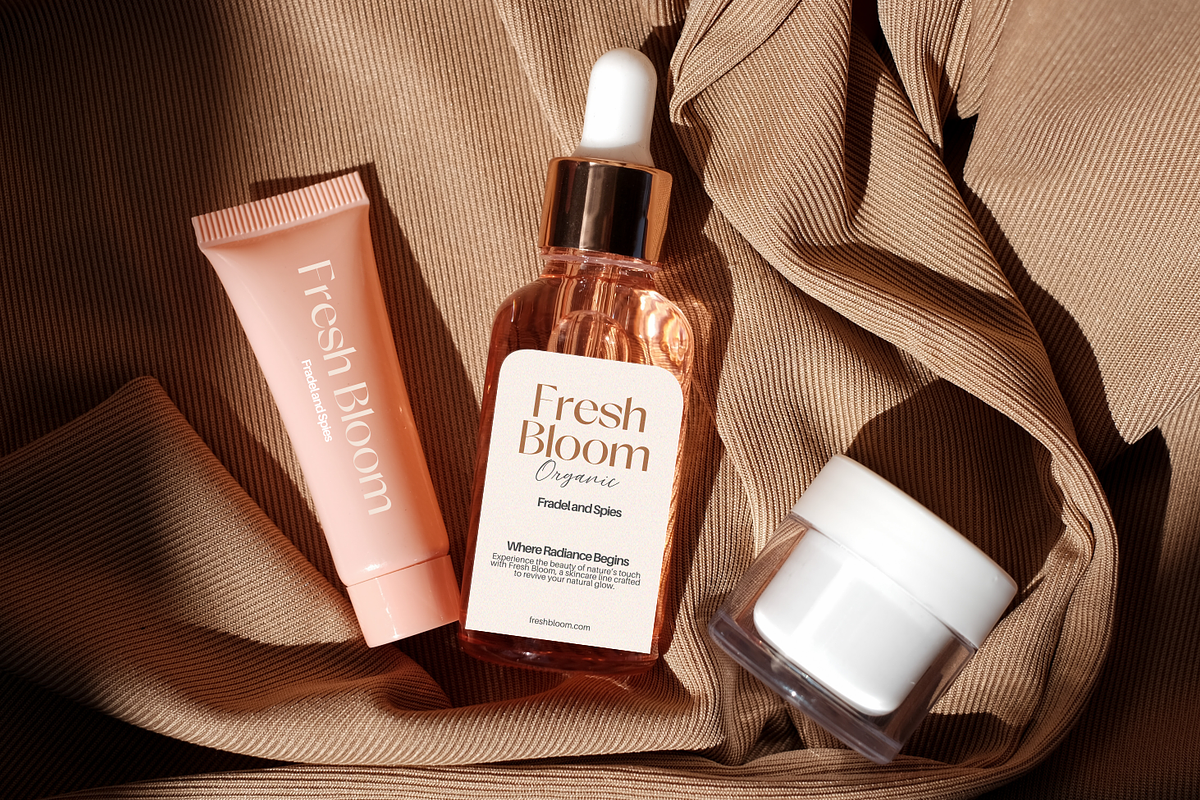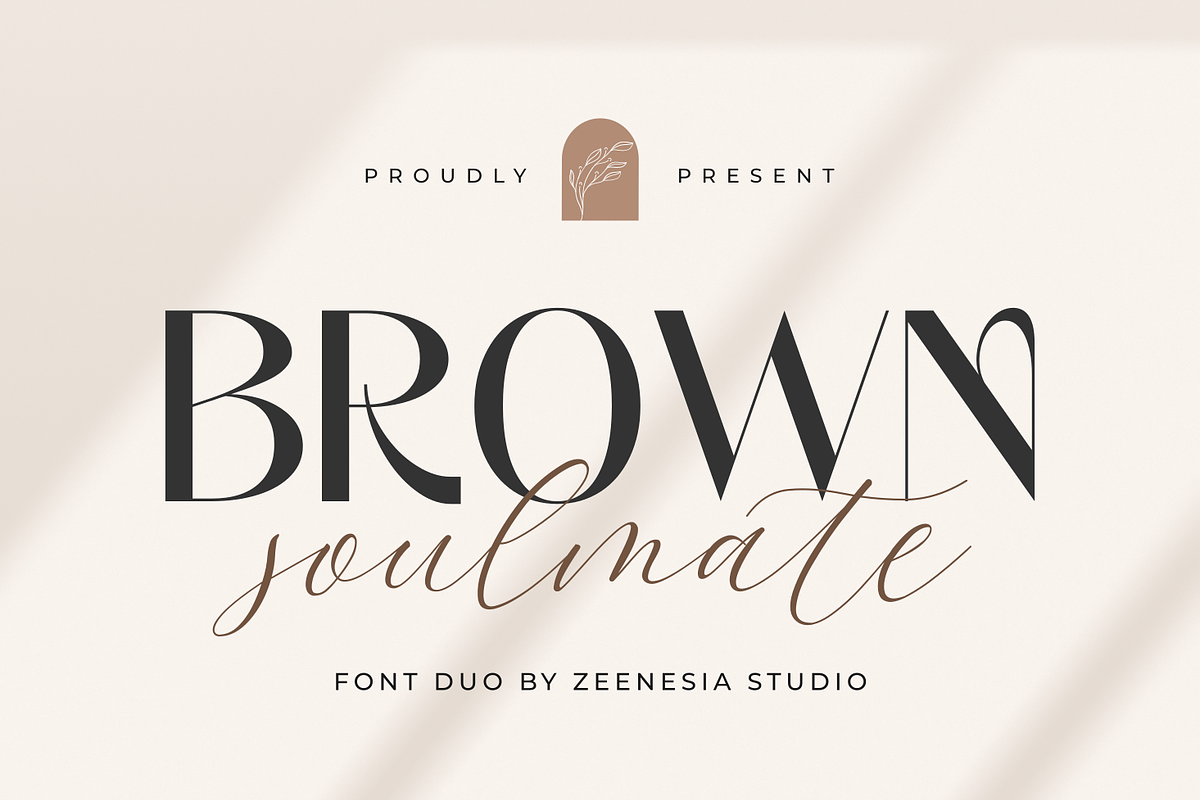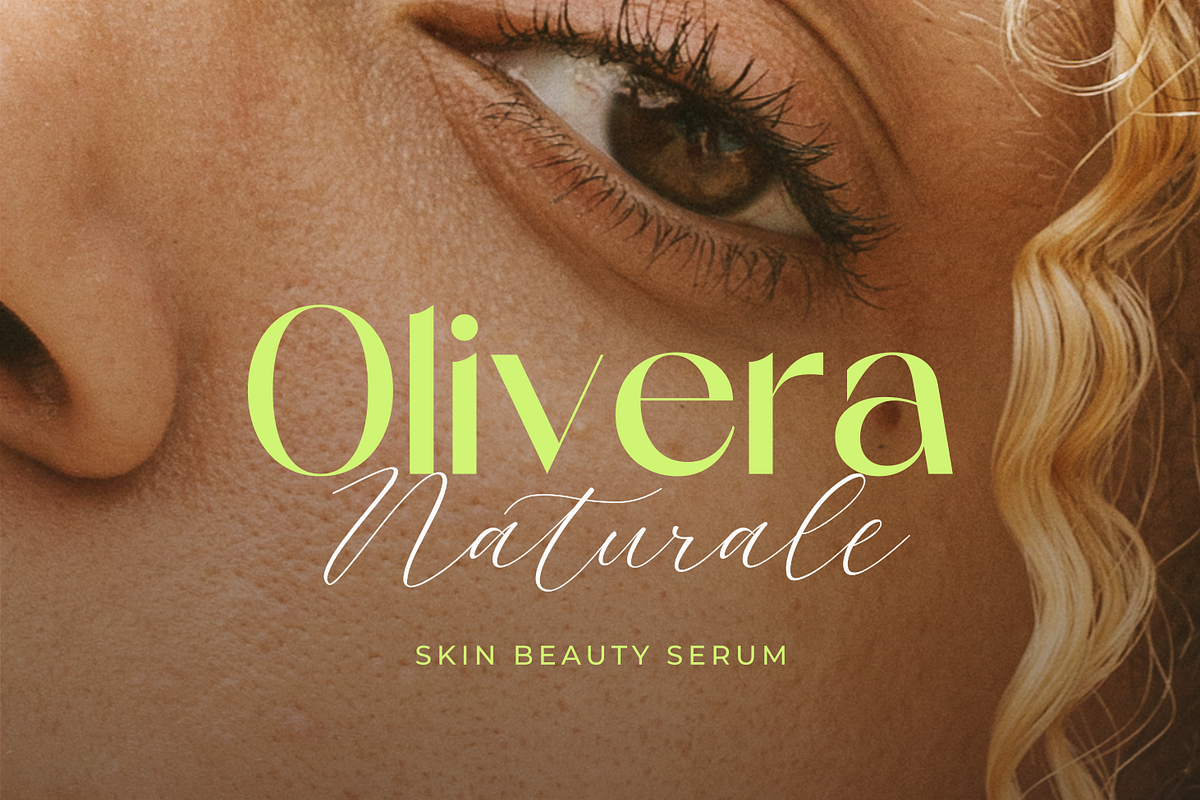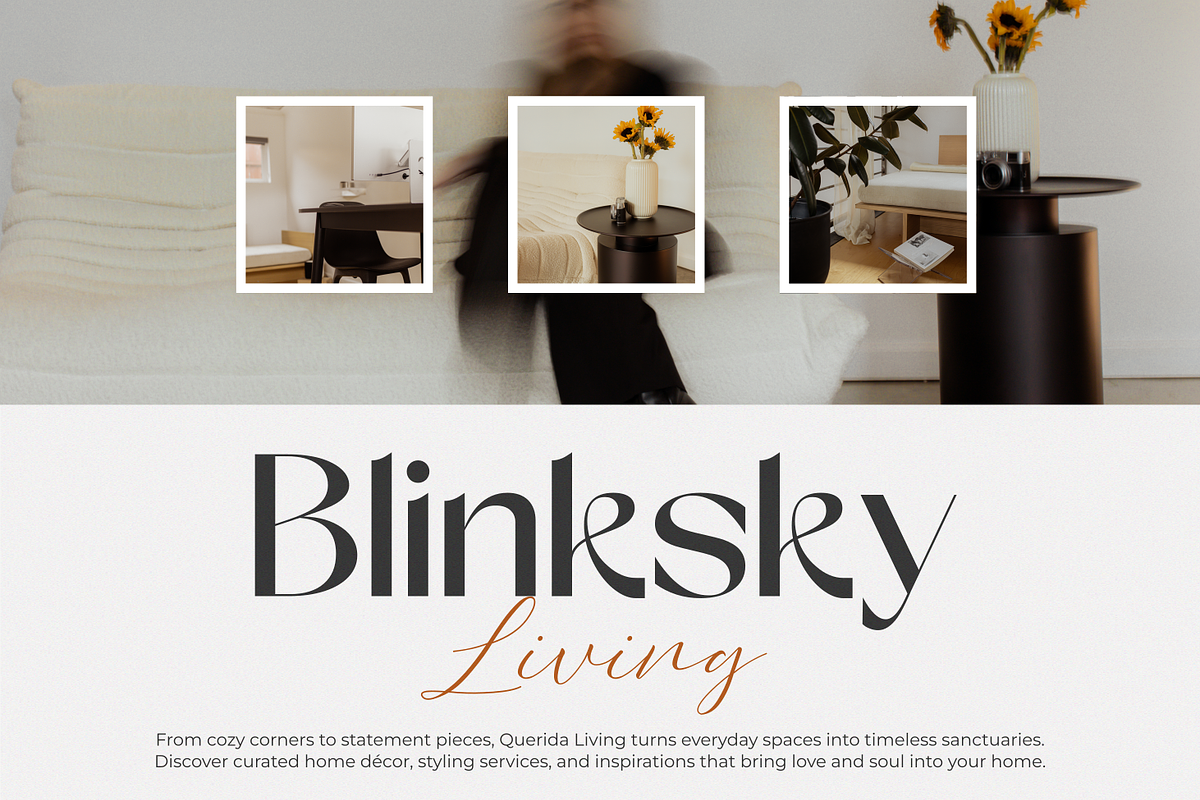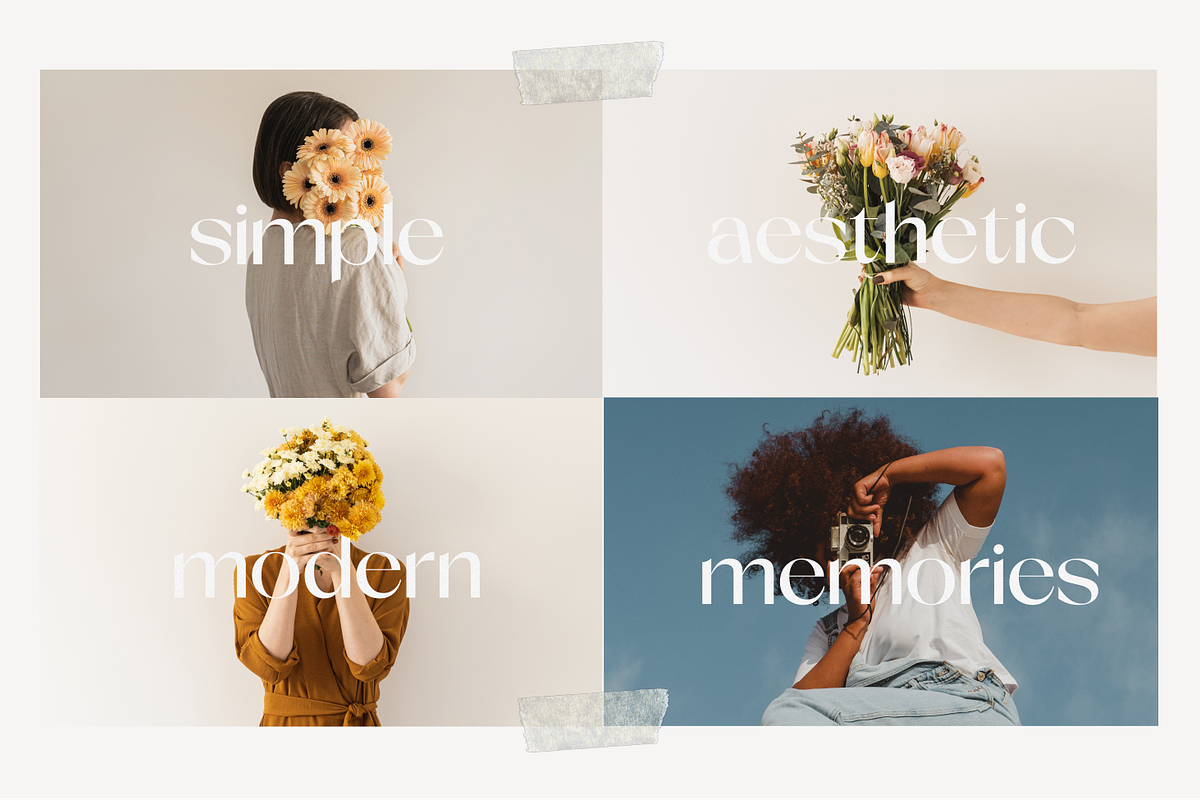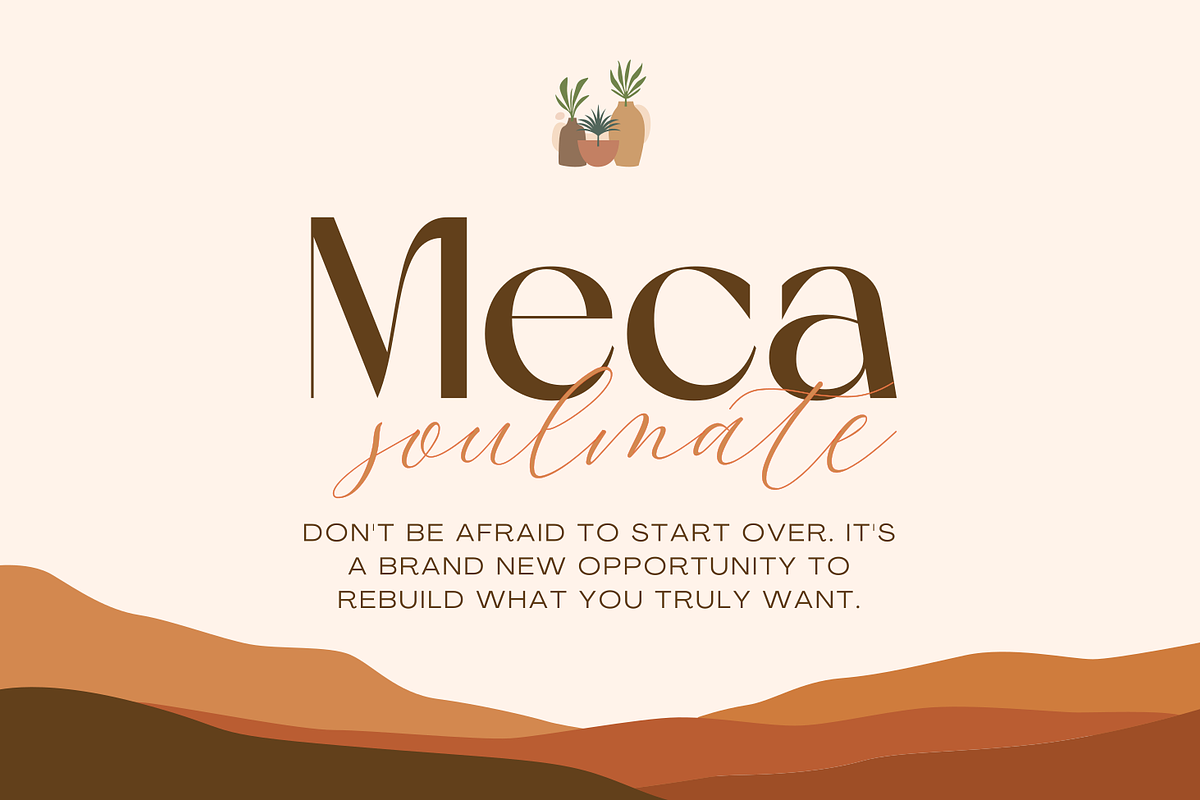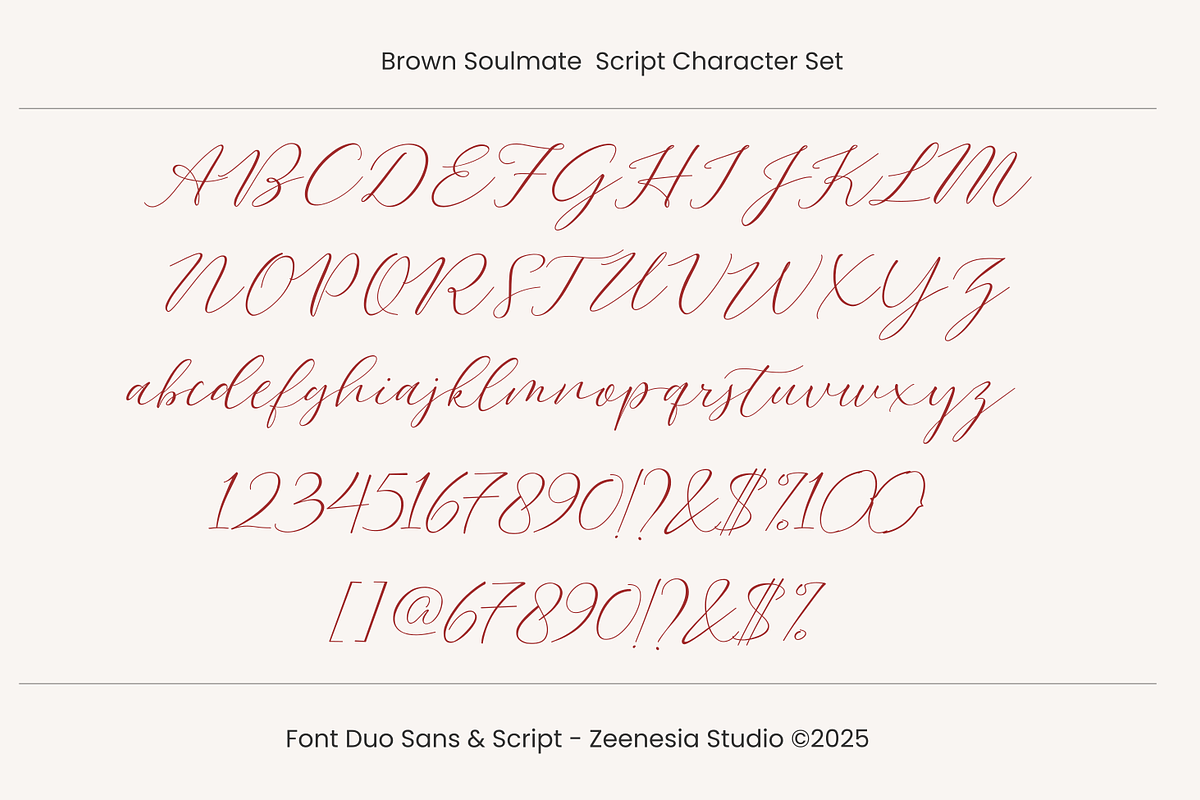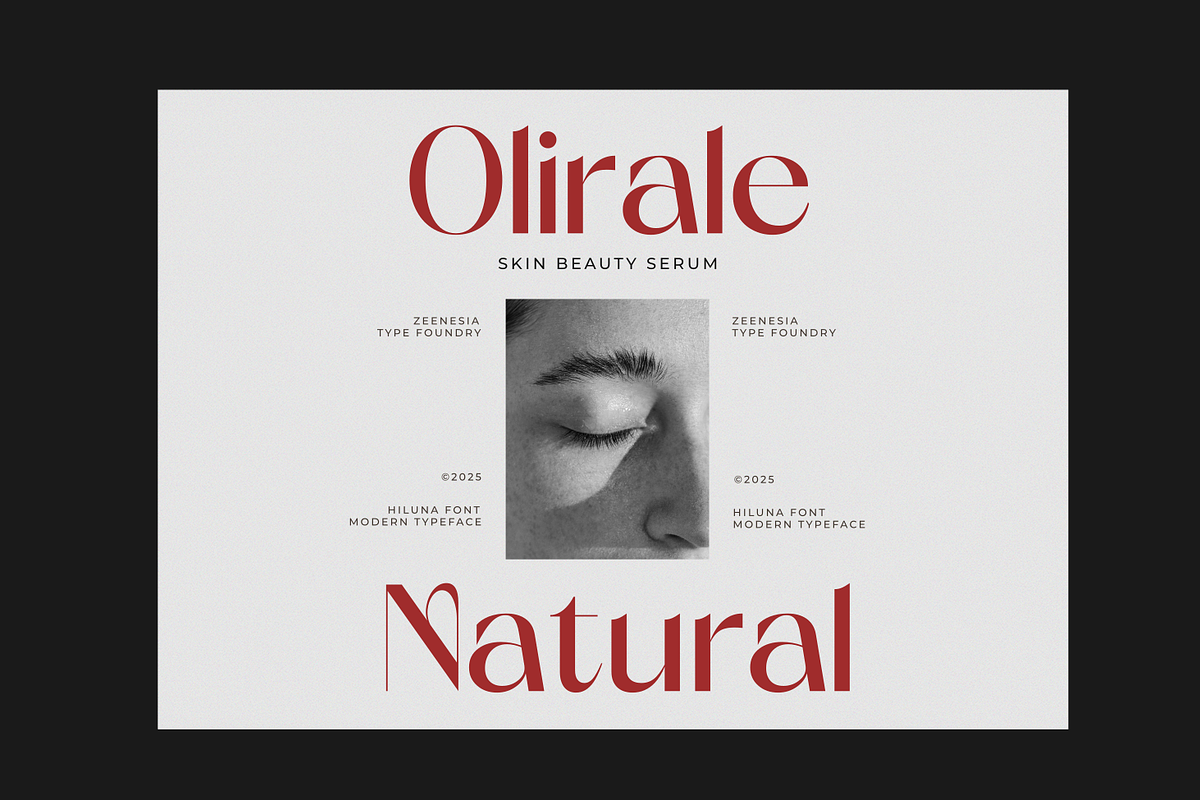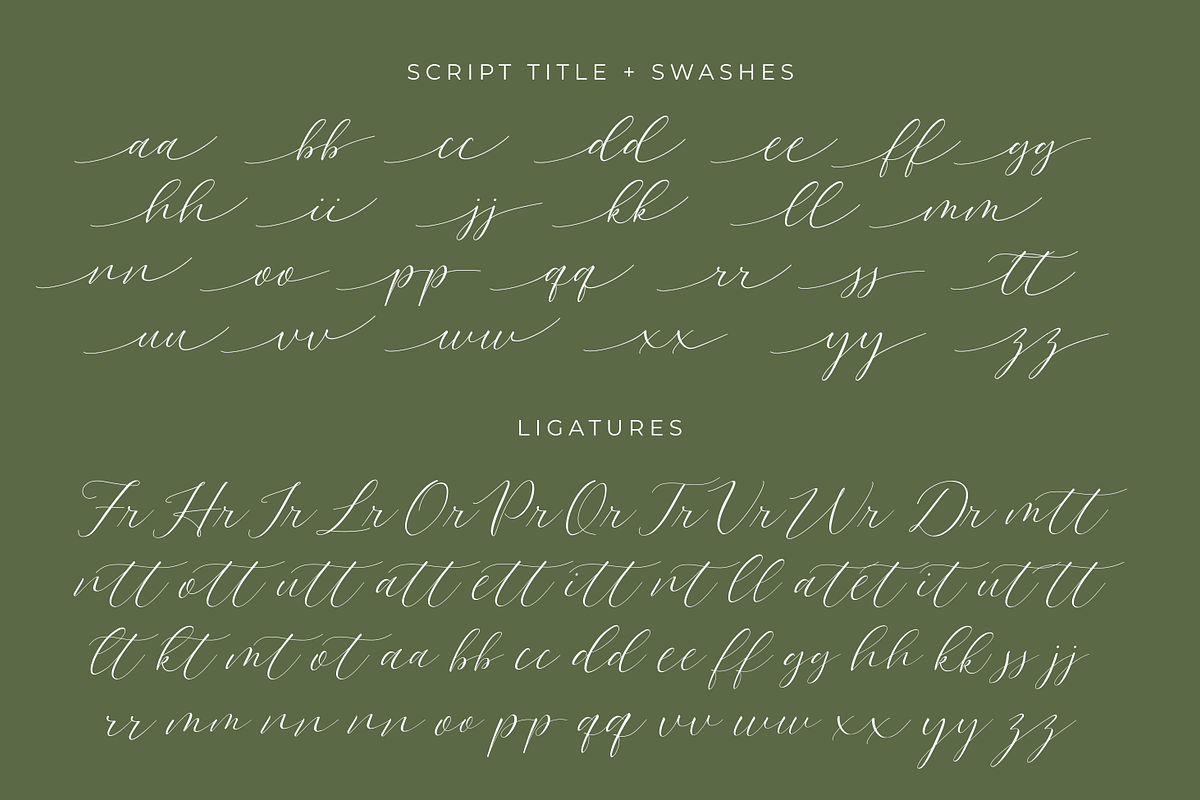
Brown Soulmate – A Charming Font Duo
Introducing Brown Soulmate, a delightful font duo that brings together the clean elegance of sans serif and the graceful charm of script lettering. This versatile pair is designed to complement each other perfectly—balancing modern simplicity with handwritten warmth.
Whether you're crafting a brand identity, social media graphics, wedding invitations, or product packaging, Brown Soulmate offers a seamless blend of style and personality. The sans serif font delivers a bold and timeless presence, while the script font adds a touch of romance and creativity.
With its harmonious combination, Brown Soulmate is more than just a typeface—it's your perfect design partner for creating heartfelt, stylish, and standout projects.